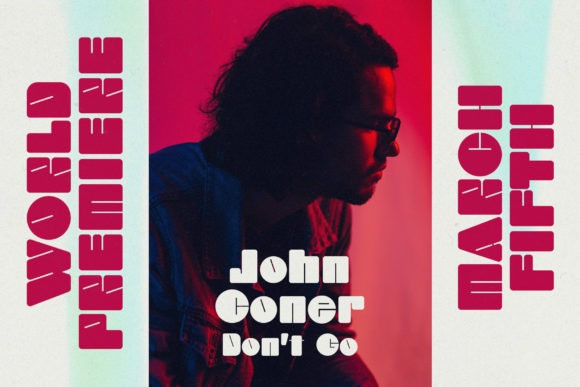
Azerty Font
Azerty is an experimental typeface meant to break all the rules. This font will encourage you to change your perspective and see reality in a new light. It will inspire you to create and push the boundaries of experimental and futuristic designs.